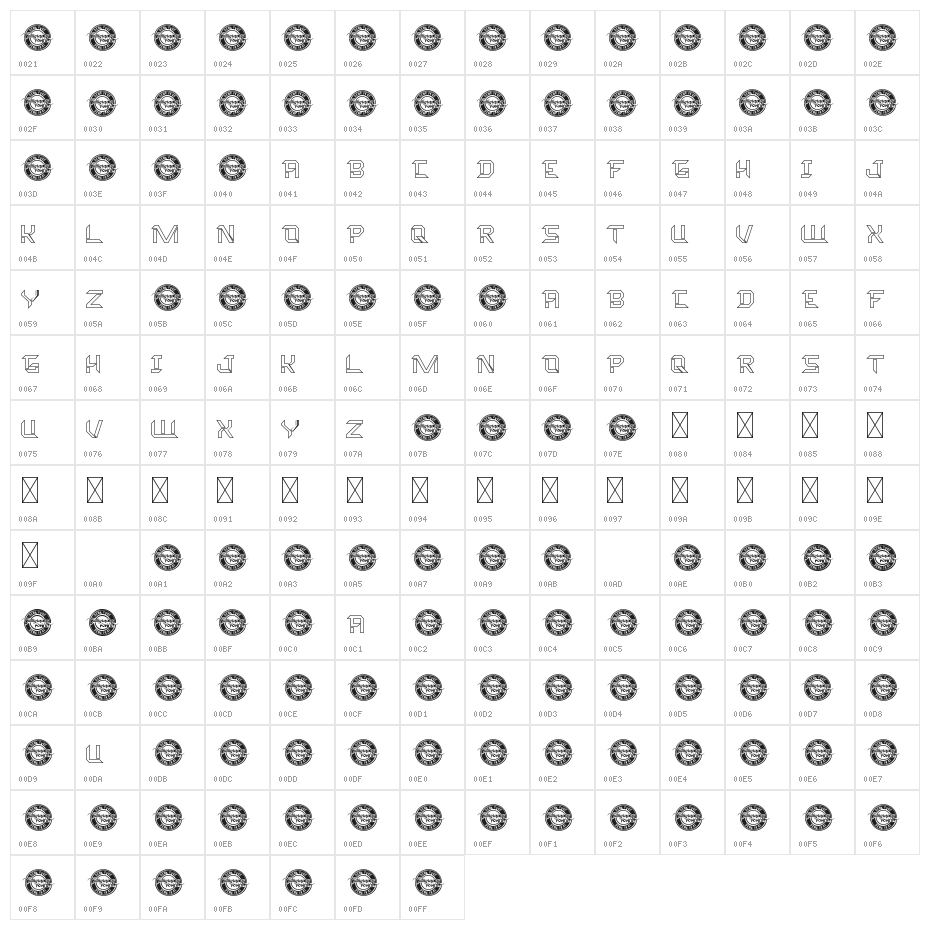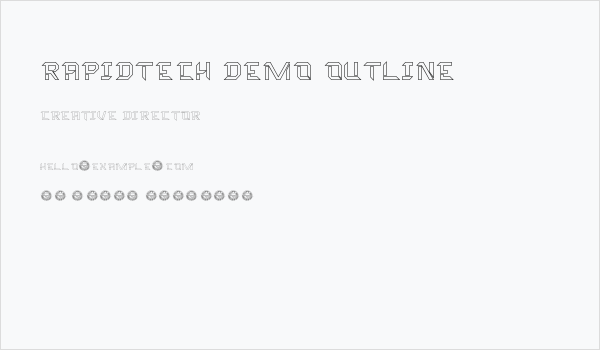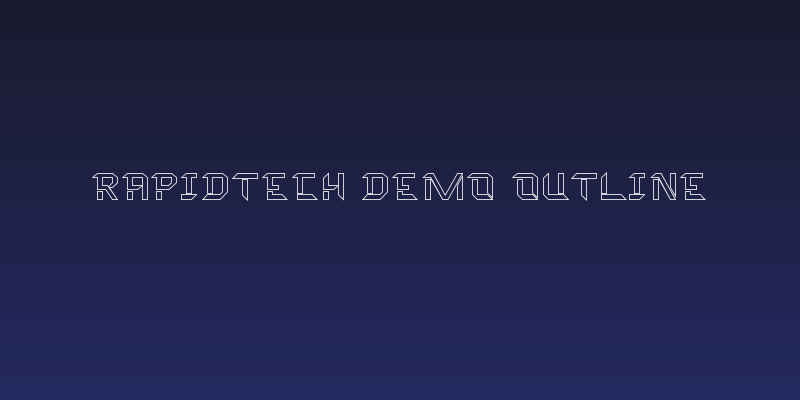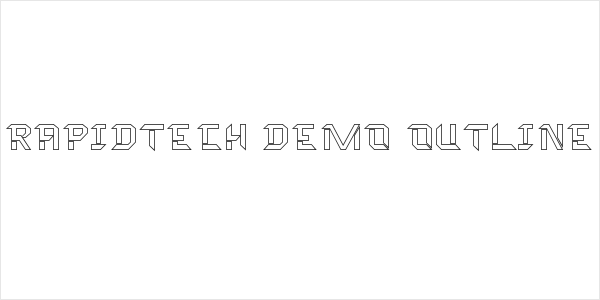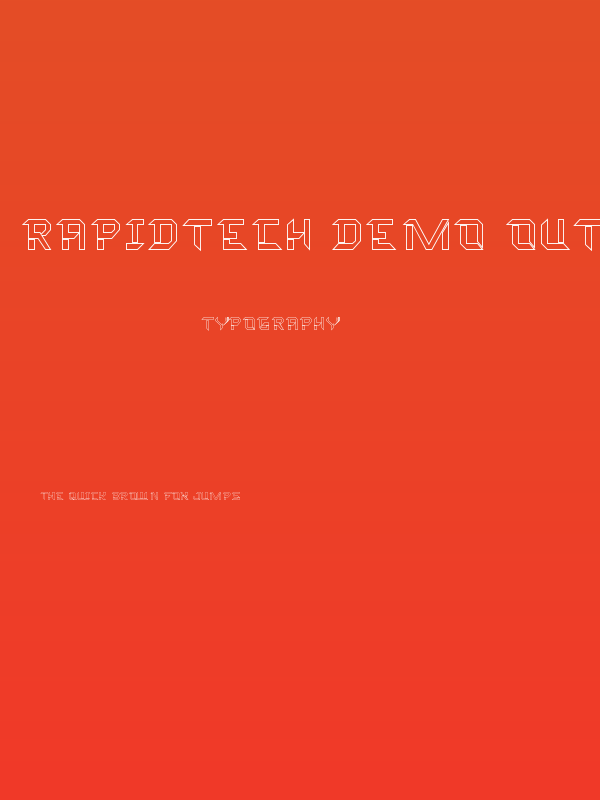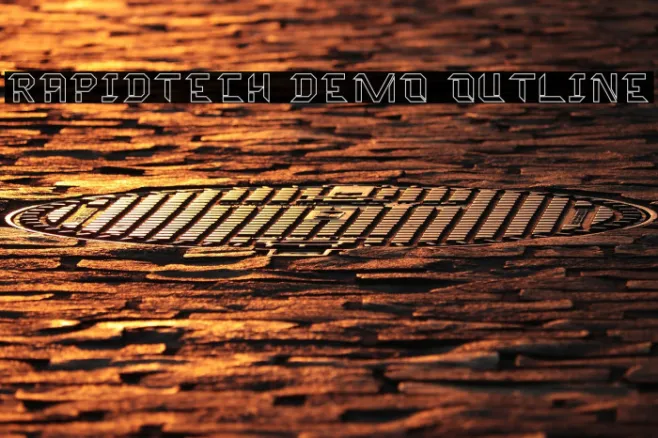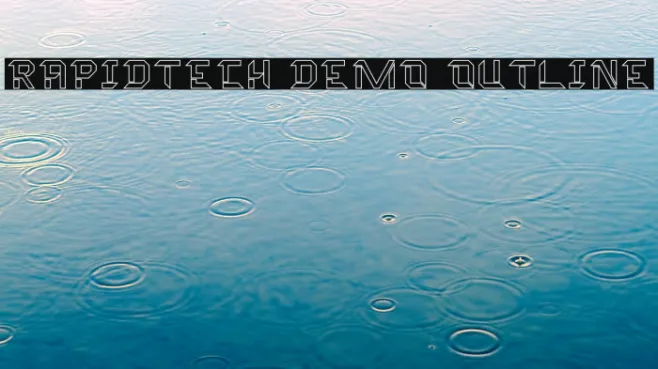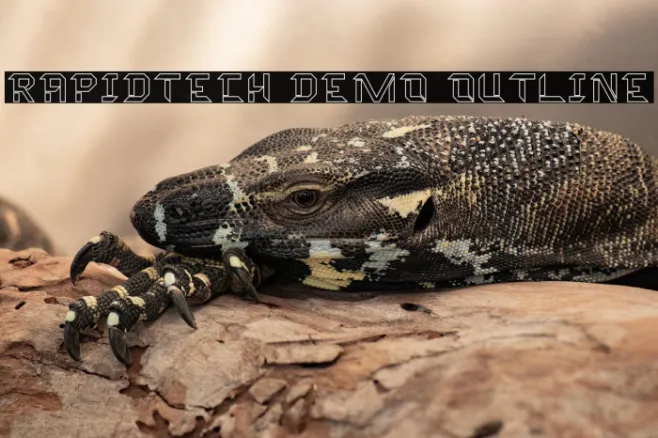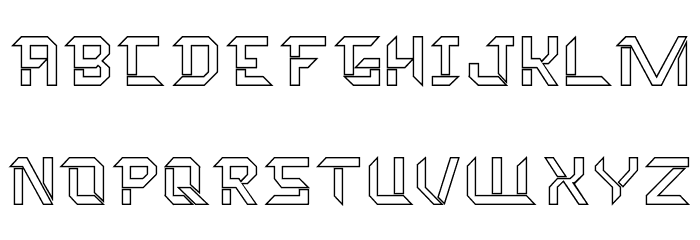
Rapidtech Demo Outline Font
Rapidtech Demo Outline Description
This font features a unique, geometric outline style that gives it a modern and futuristic appearance. The characters are constructed with angular lines and sharp edges, creating a sense of precision and technicality. The uppercase letters are bold and striking, making them ideal for attention-grabbing headlines or logos. The absence of lowercase letters and numbers suggests a focus on display purposes rather than body text. The font's design is reminiscent of digital or technological themes, making it suitable for projects related to tech, gaming, or science fiction. The consistent line thickness throughout the characters provides a uniform look, while the open spaces within the letters add a touch of elegance and readability.
| Proposed Projects | Ideal for tech-related branding, gaming titles, sci-fi posters, and modern logos. |